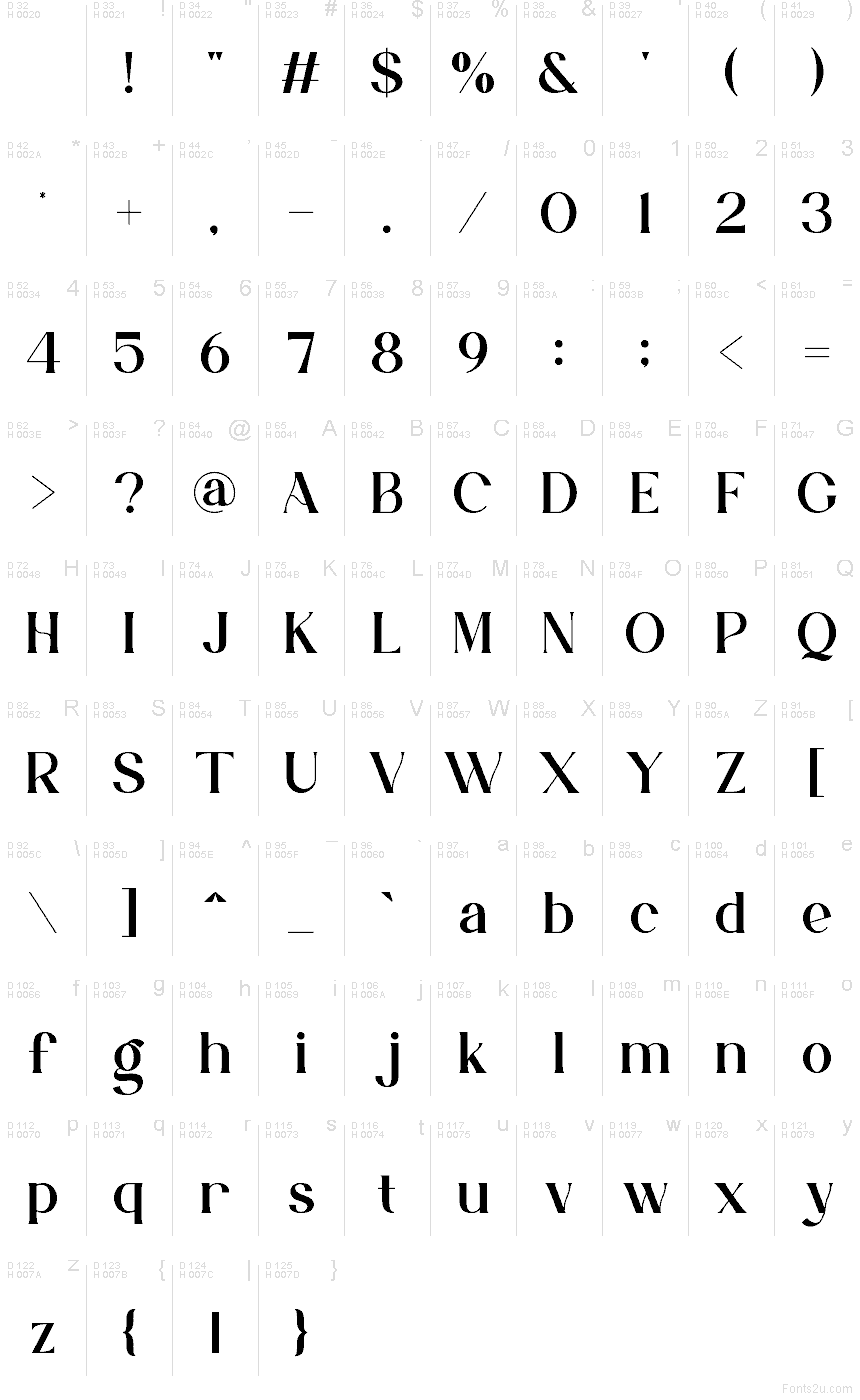
Orealo Regular
Orealo font by ErmediaStudio is a free serif typeface with a dramatic, sculpted presence. Wide, oval counters meet razor-clean verticals, giving each letter a polished, editorial feel that’s both luxe and a little bit daring. The spacing feels tight and intentional, so words lock together like a custom logotype rather than a generic text font.
This free font shines on fashion branding, magazine covers, boutique packaging, bold posters, and statement headlines on websites or lookbooks. Using Orealo at larger sizes lets those sweeping curves and dense strokes really show off, while a simple geometric sans (like your favorite grotesk) makes a great supporting partner for body copy. Orealo brings that glossy, art-directed energy wherever you need typography to feel rich and memorable.